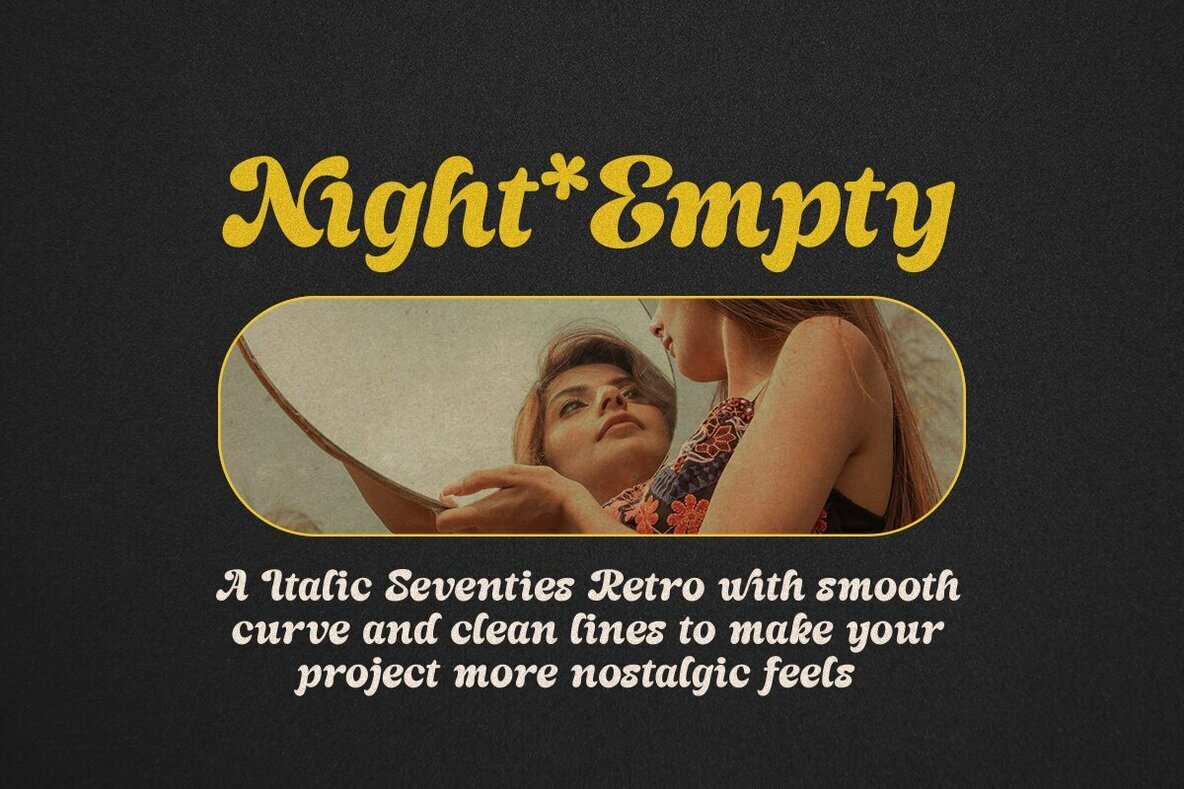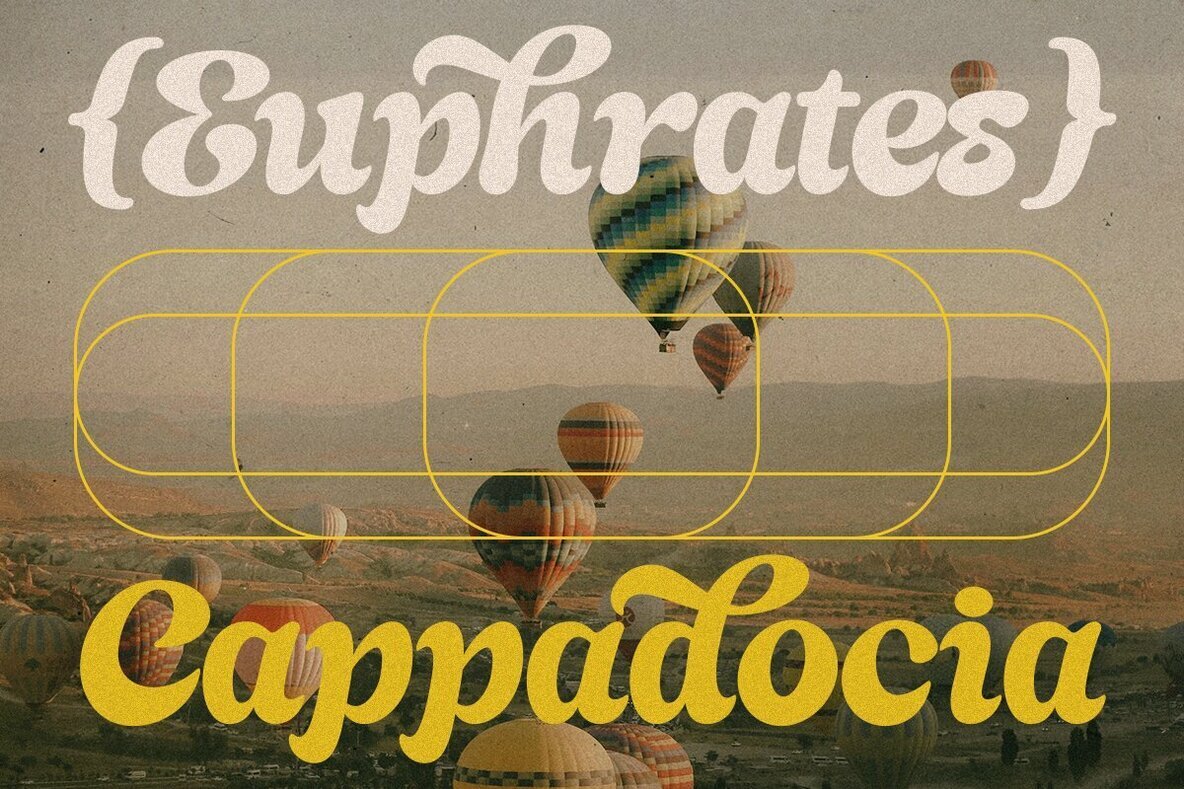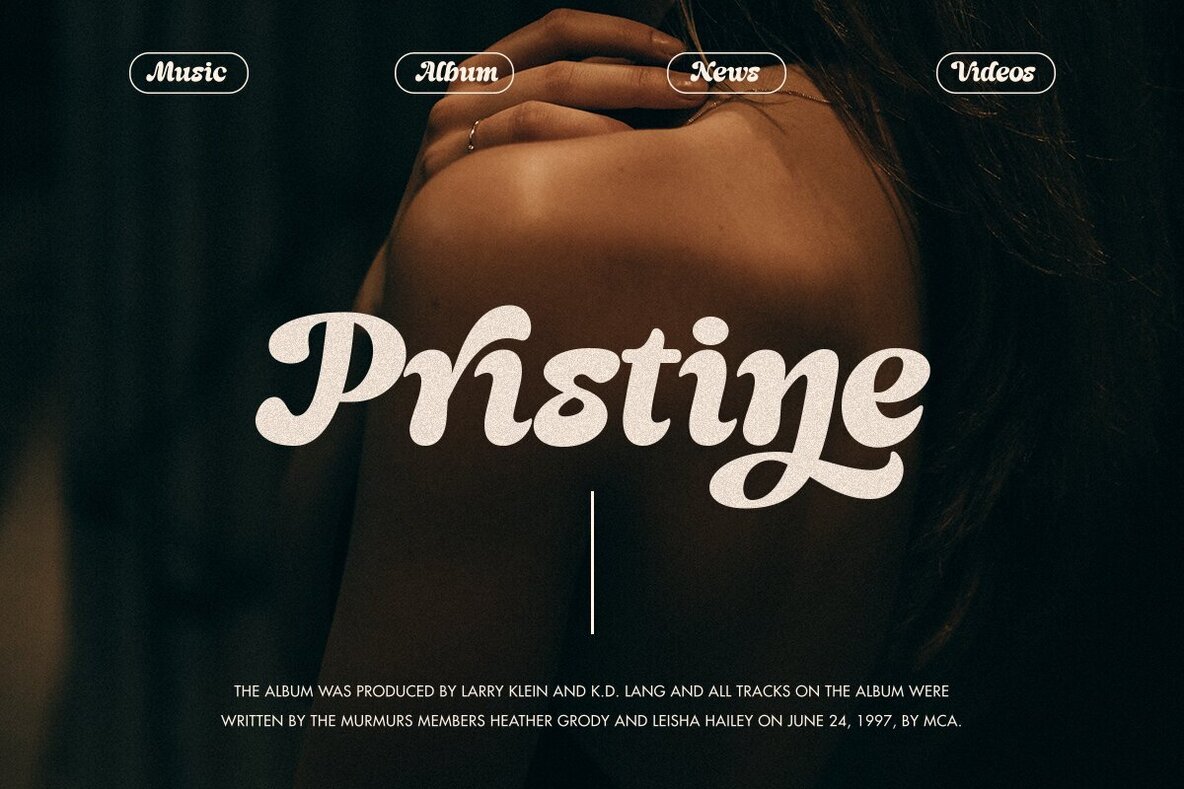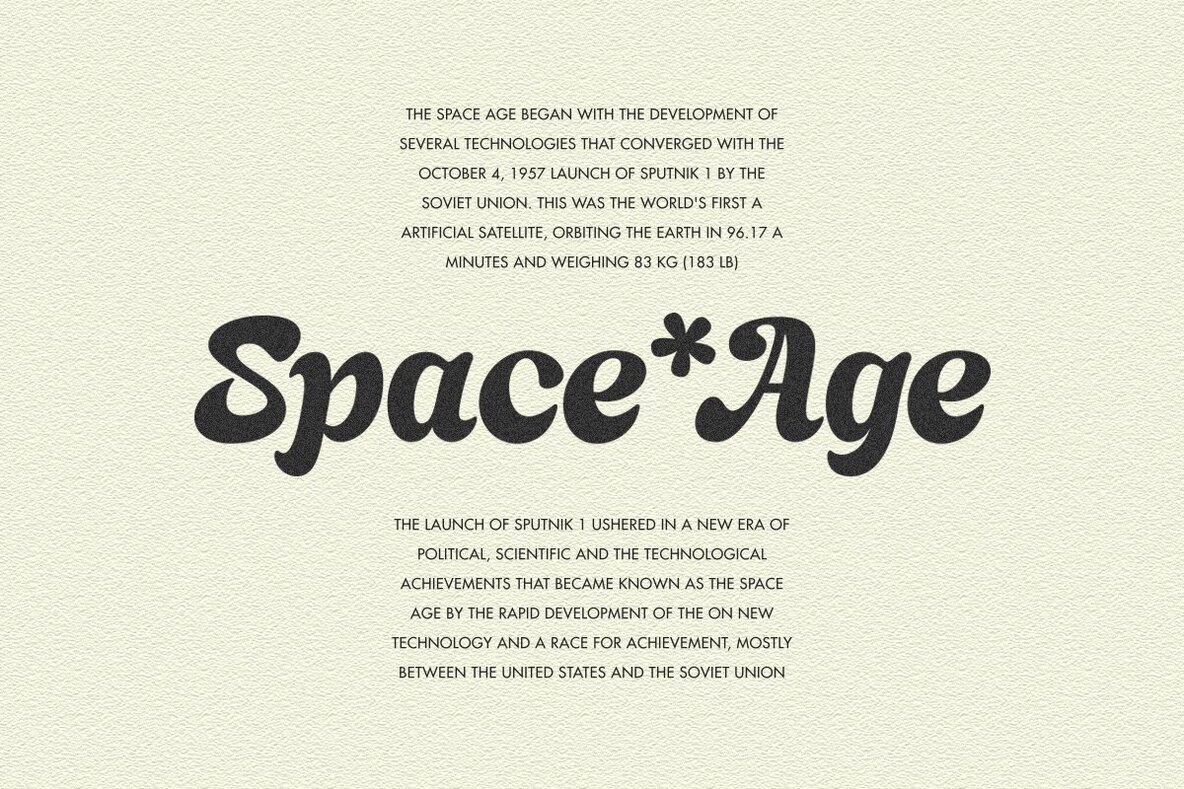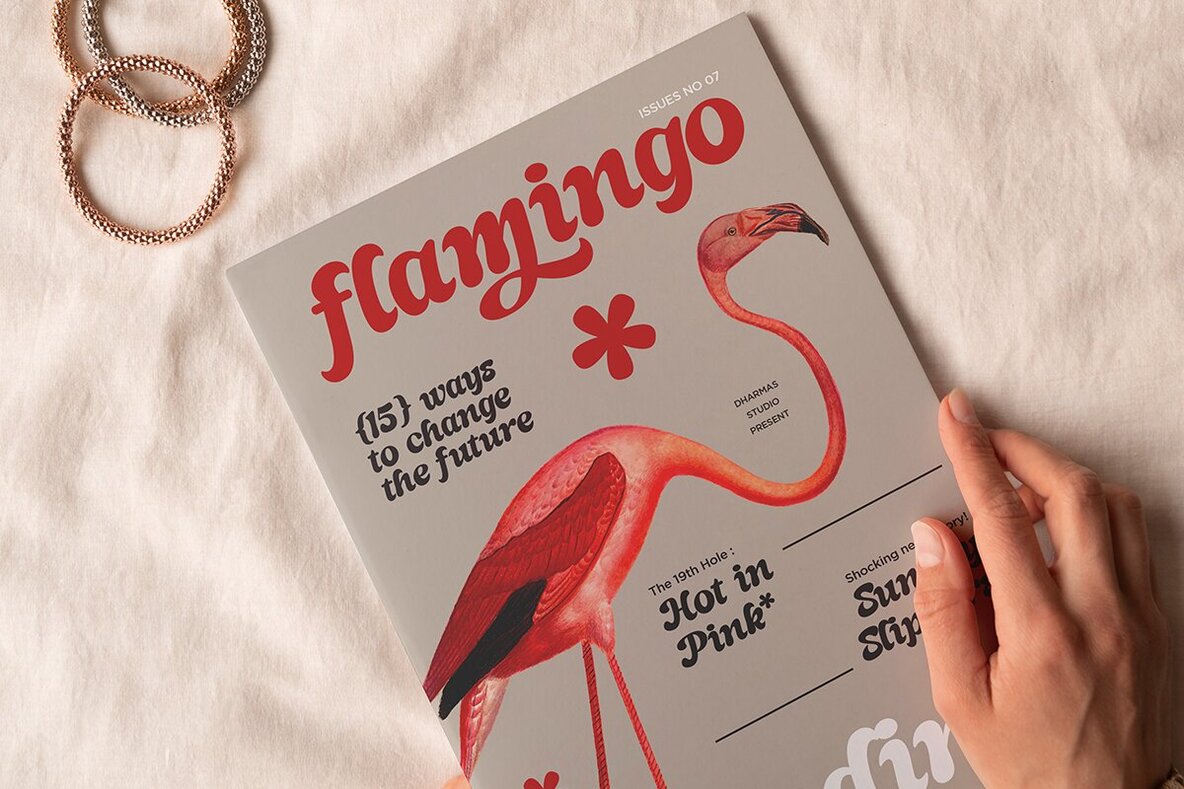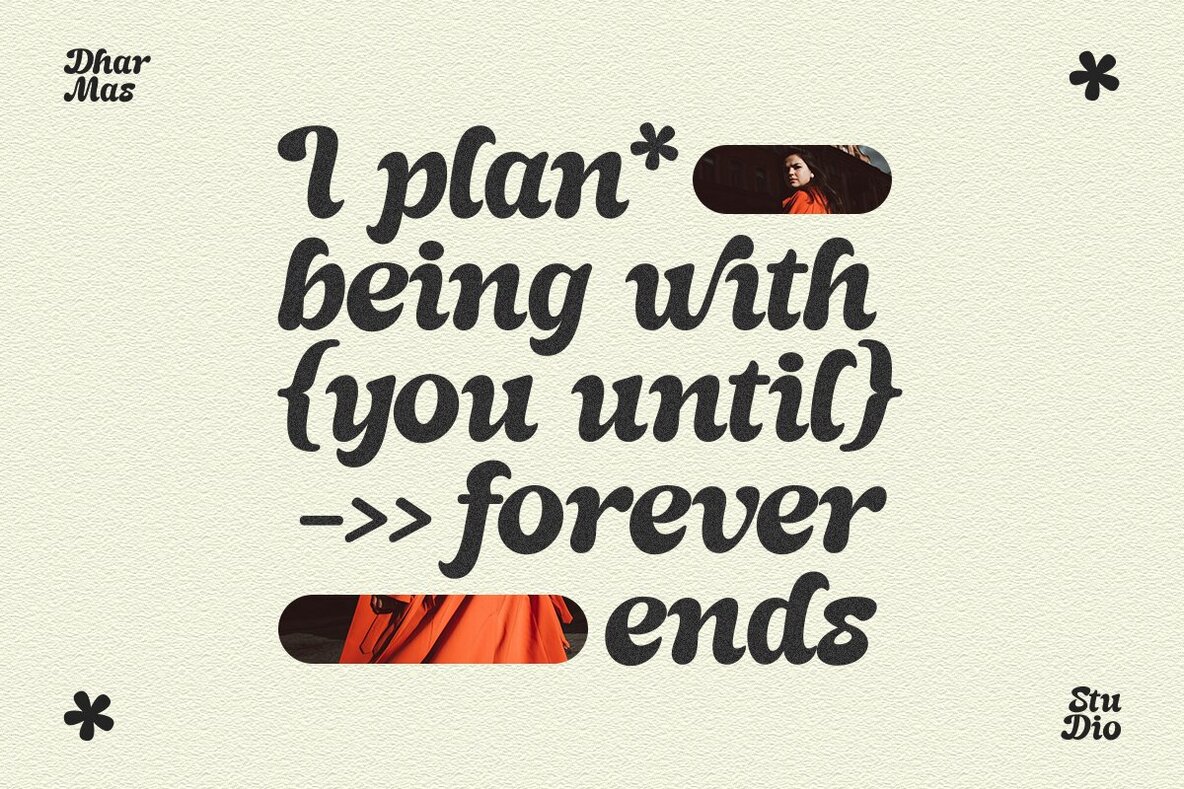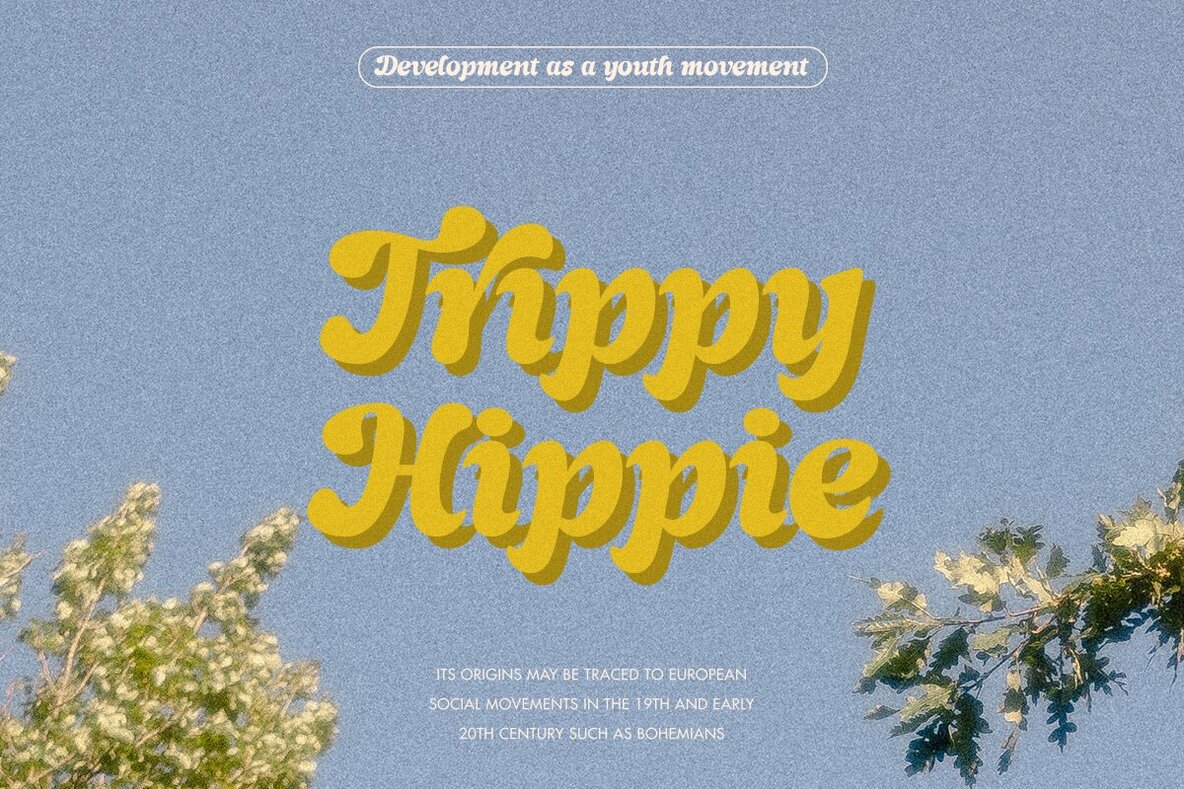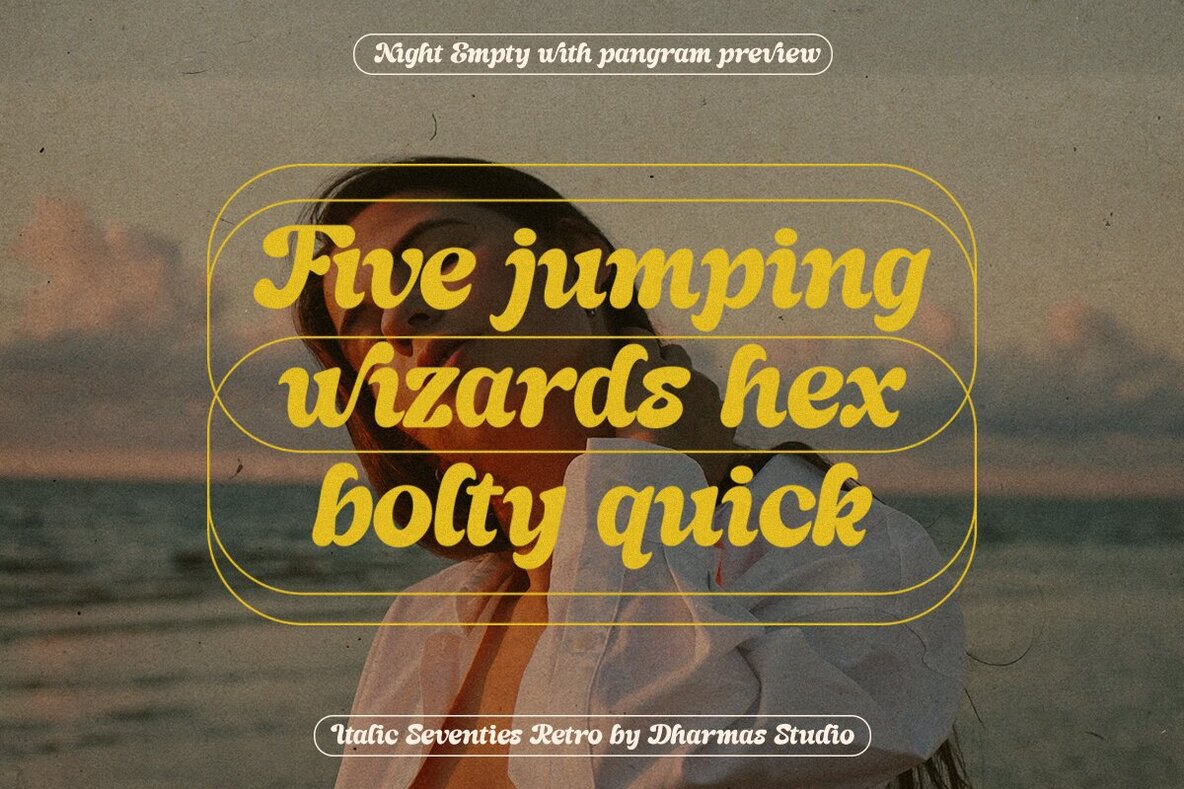
Night Empty Font
Night Empty
Introduce a touch of nostalgic elegance to your work with Night Empty, a seventies-inspired italic retro font. Its smooth curves and clean lines deliver a retro yet chic vibe, suitable for diverse creative applications, from branding to wedding stationery. Explore the limitless possibilities with Night Empty across different mediums. It integrates seamlessly with popular design software such as Canva, ensuring ease and convenience for all your design projects.Night Empty: A Seventies Italic Retro Font